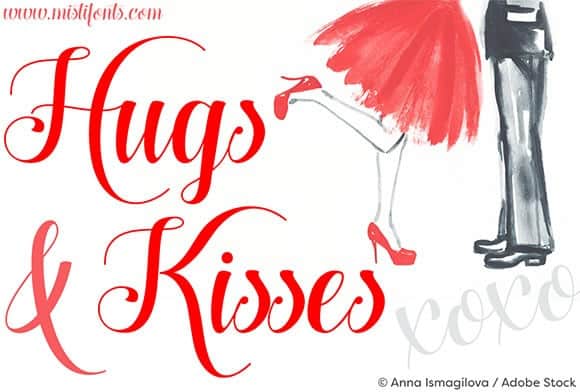
Hugs and Kisses Xoxo Font
Hugs and Kisses xoxo Demo Font — By Misti’s Fonts
Hugs and Kisses xoxo is an elegant script font and can be used for various purposes such as headings, logos, invitations, t-shirt designs, greeting cards, posters, labels, book covers, brochures and much more!